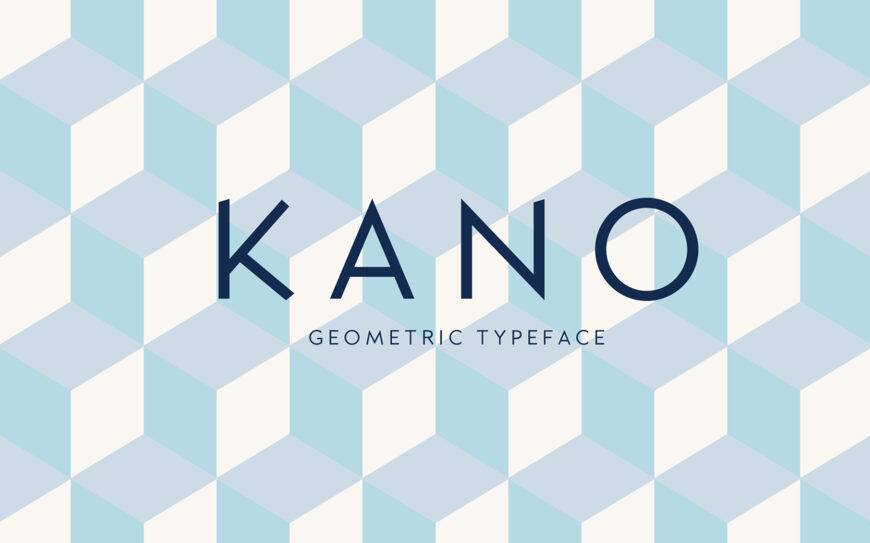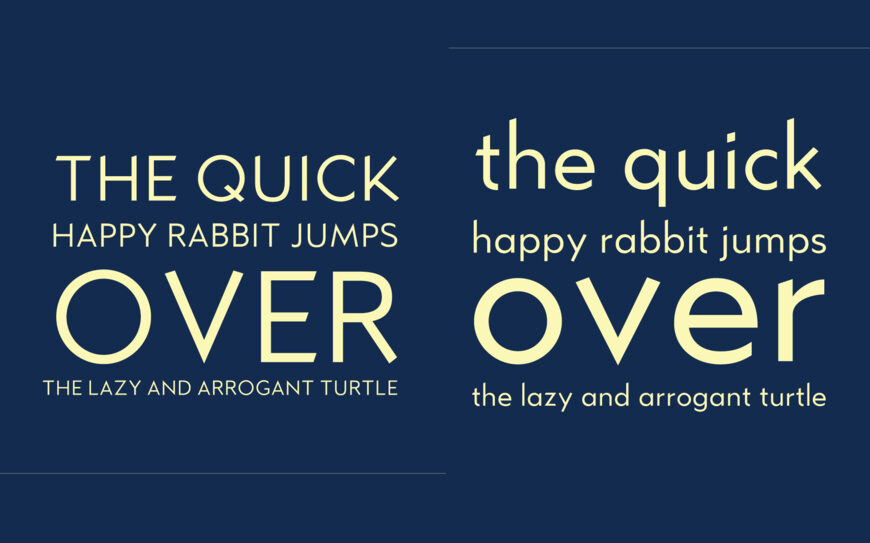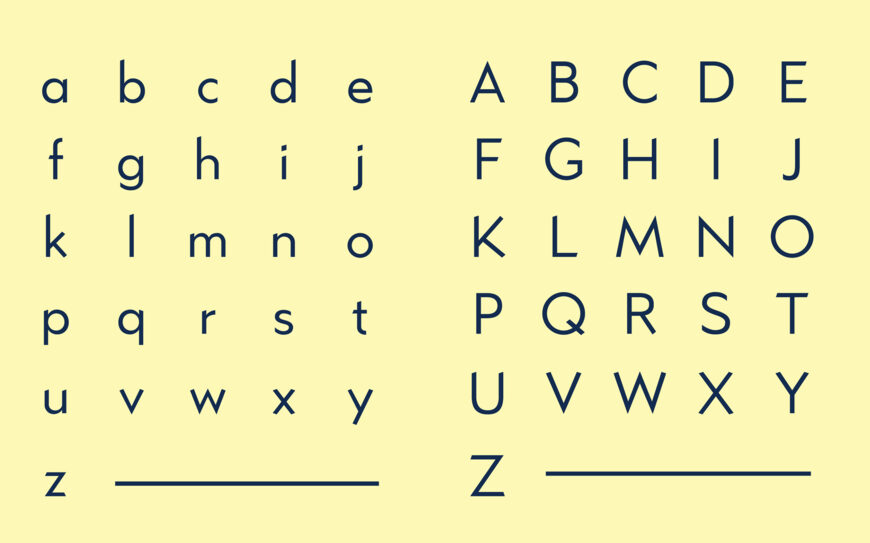
Kano is a modern geometric and minimalist display typeface designed by Frederick Lee. Built with clean lines, sharp angles, and distinct circular proportions, it offers a crisp, contemporary aesthetic.
Distinctive diagonal cuts on its stems and ascenders give the letterforms a unique edge, while its complete uppercase and lowercase character set makes it an excellent choice for striking headlines, logos, posters, and editorial designs.